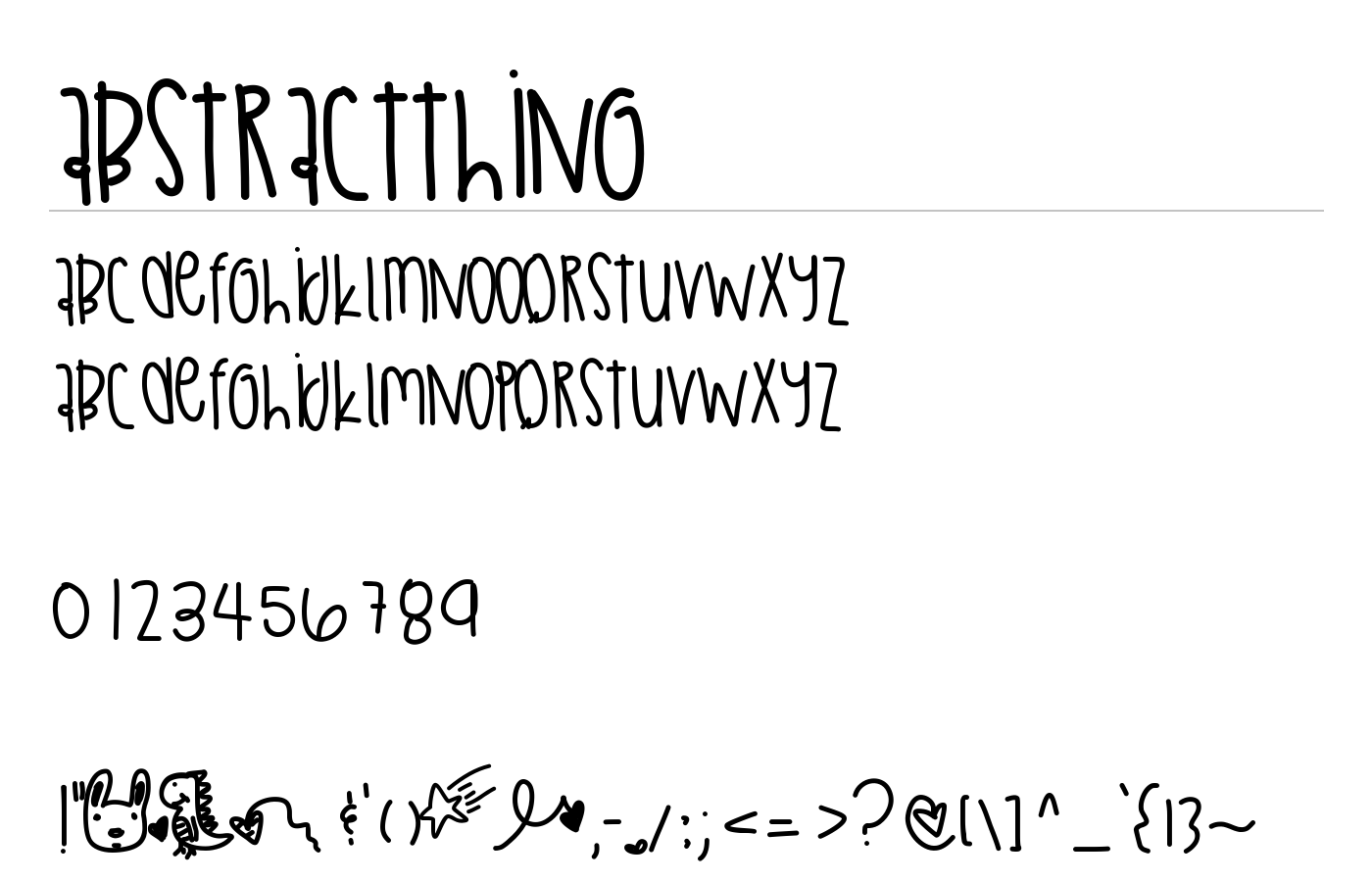
AbstractThing is a playful, handwritten-style font with tall, narrow letterforms and quirky, irregular shapes that give it a unique and whimsical personality. Its light weight and informal strokes make it perfect for creative projects that aim for a fun, approachable, and childlike vibe. This font works especially well in casual branding, children’s content, and artistic designs where a friendly, imaginative tone is desired.
AbstractThing Font